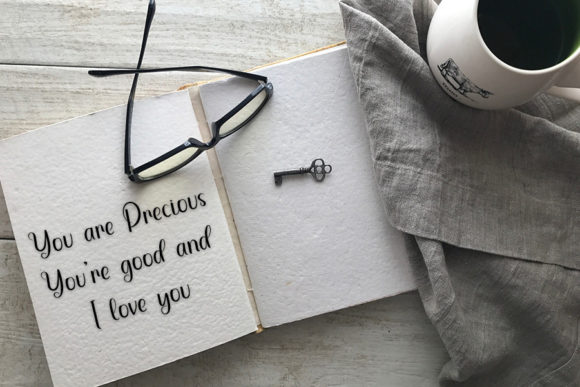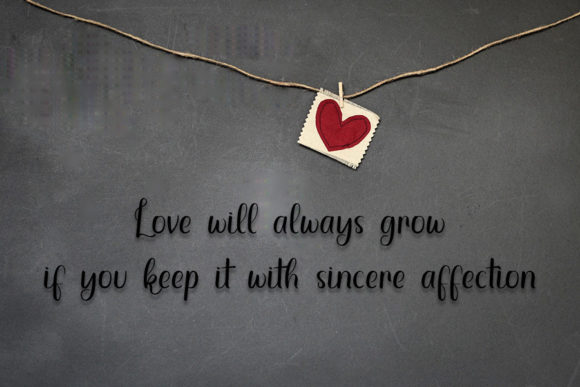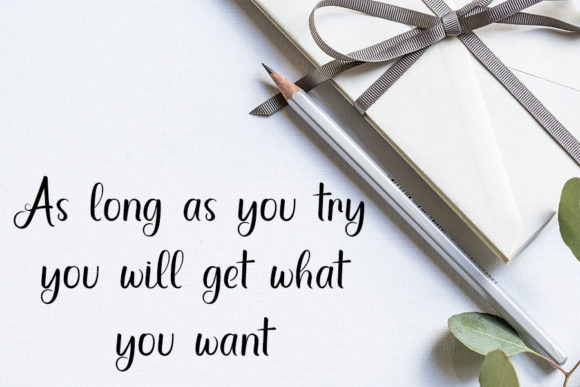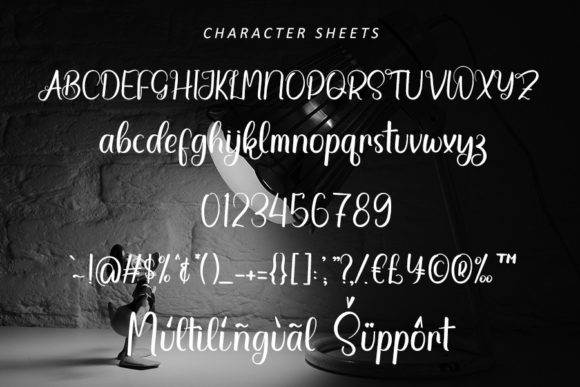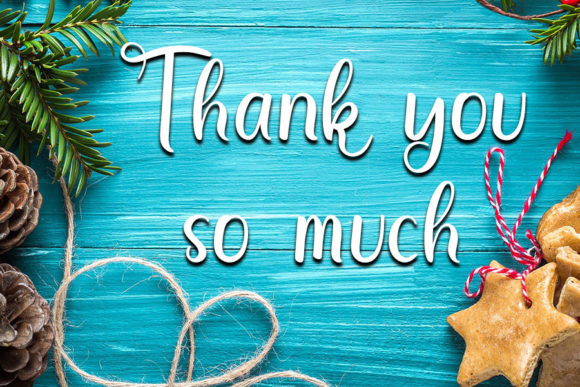
Introduction to Bunny Angel Font
Bunny Angel is a stylish handwritten font with a contemporary atmosphere and impeccable form, inspired by a timeless classic calligraphy.
Balanced and varied, this font was designed to enhance the beauty of your projects .
Key Features of Bunny Angel Font